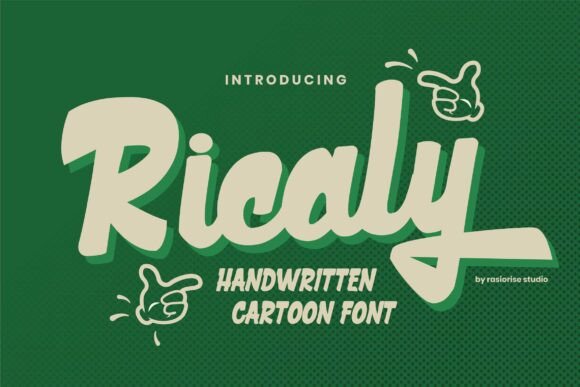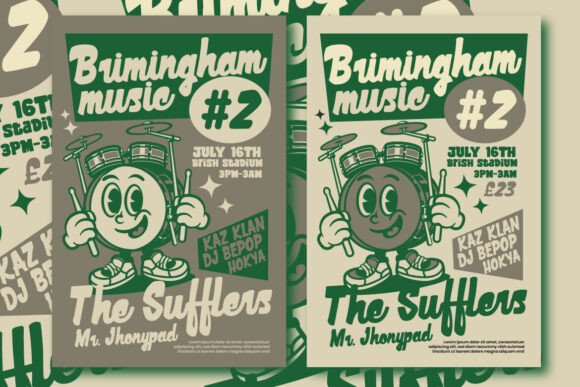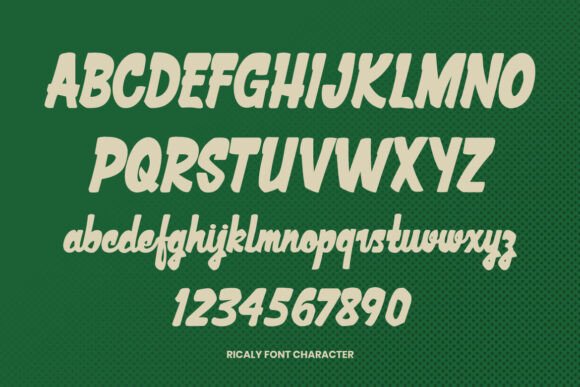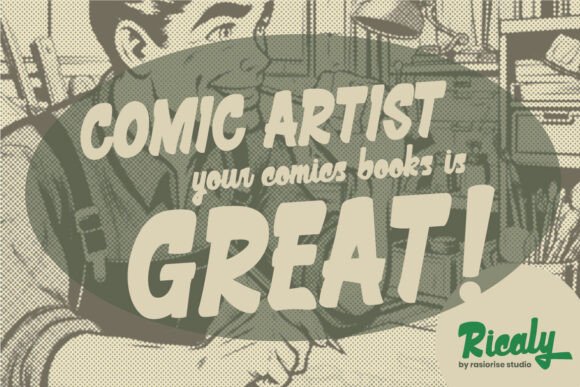
Ricaly Font: A Bold Handwritten Font for Eye-Catching Logo Design
About the Ricaly Font
Discover the charm of Ricaly Font. This font is a perfect blend of modern aesthetics and classic appeal. Ricaly is a gorgeous and bold handwritten font, crafted to give your headlines and logotype projects a stylish touch. This font reads as strong, confident, and dynamic and can add tons of nostalgic character to your designs.
Ricaly’s strong, confident strokes make it ideal for headlines, logos, and short, impactful phrases in branding materials or posters. Its nostalgic feel works well for projects evoking a vintage or handcrafted aesthetic. However, its bold weight and handwritten nature make it unsuitable for body text or UI elements requiring high readability. Avoid using it for long paragraphs or small sizes.
To balance Ricaly’s bold personality, pair it with a clean sans-serif like Montserrat for a modern contrast or a classic serif like Garamond for a more traditional feel. A simple geometric sans-serif would also create a strong visual juxtaposition, enhancing Ricaly’s handwritten charm.
Ricaly’s overall personality is bold, dynamic, and slightly nostalgic, making it a perfect fit for brands that want to project confidence and a touch of vintage appeal. Consider using it for projects related to coffee shops, craft breweries, or boutique clothing lines.